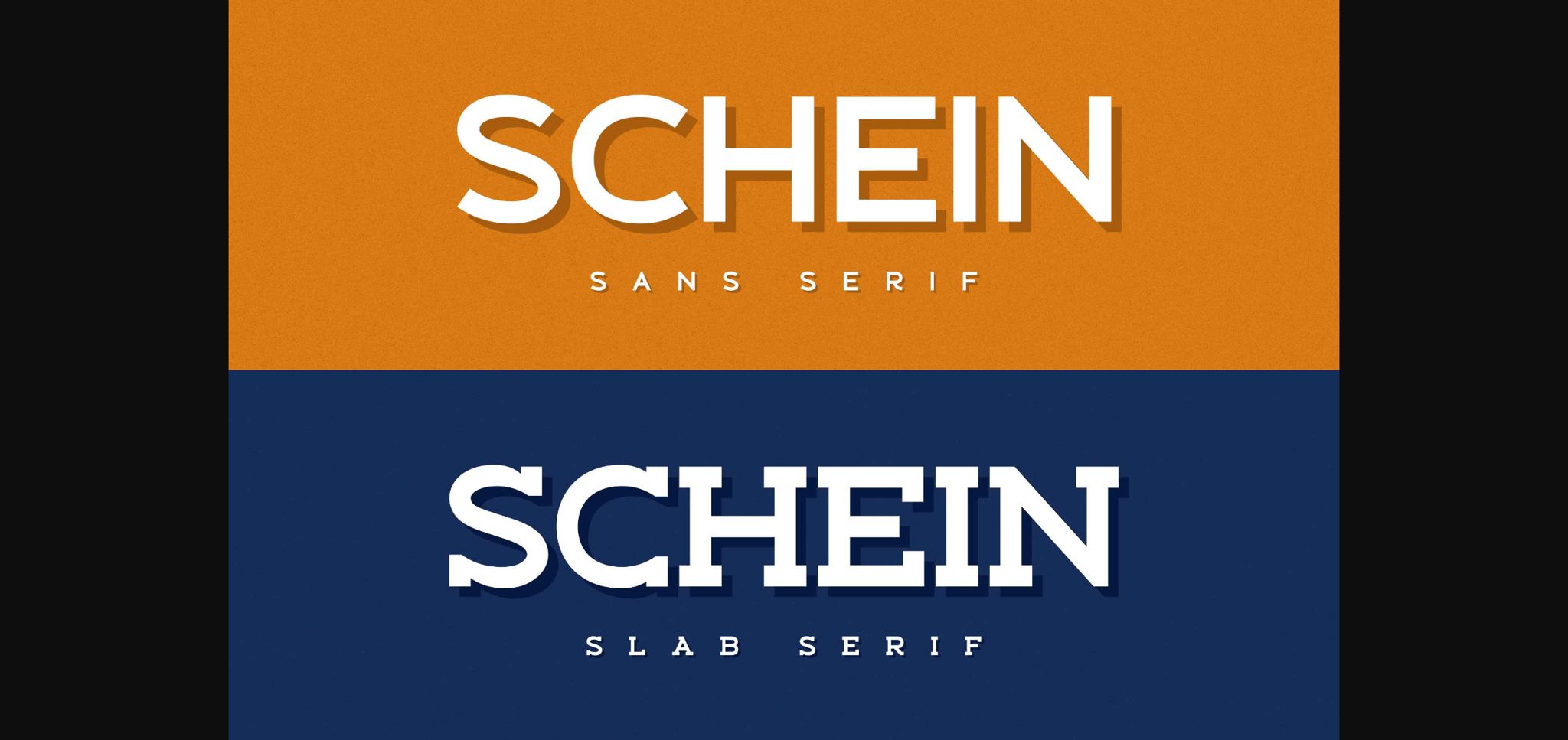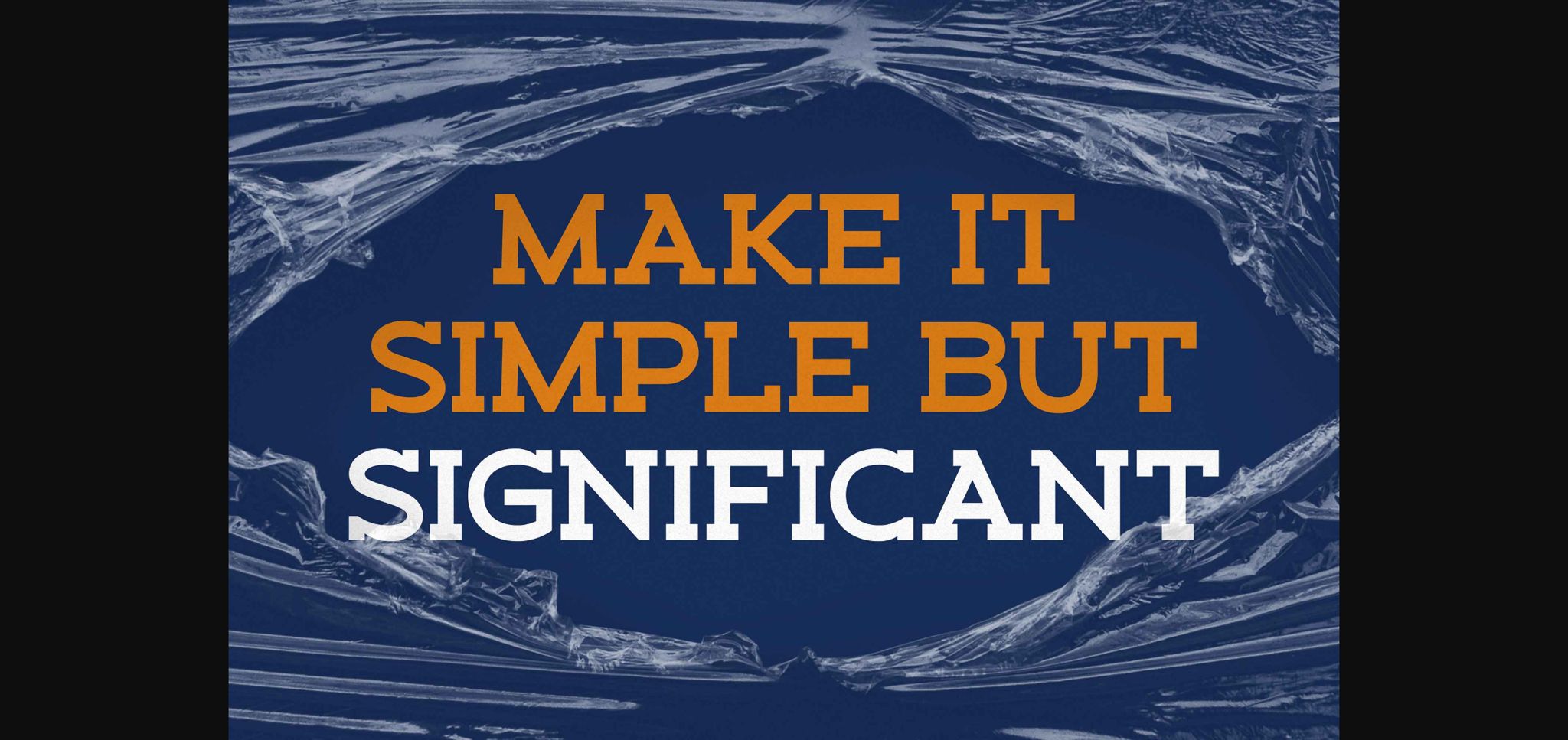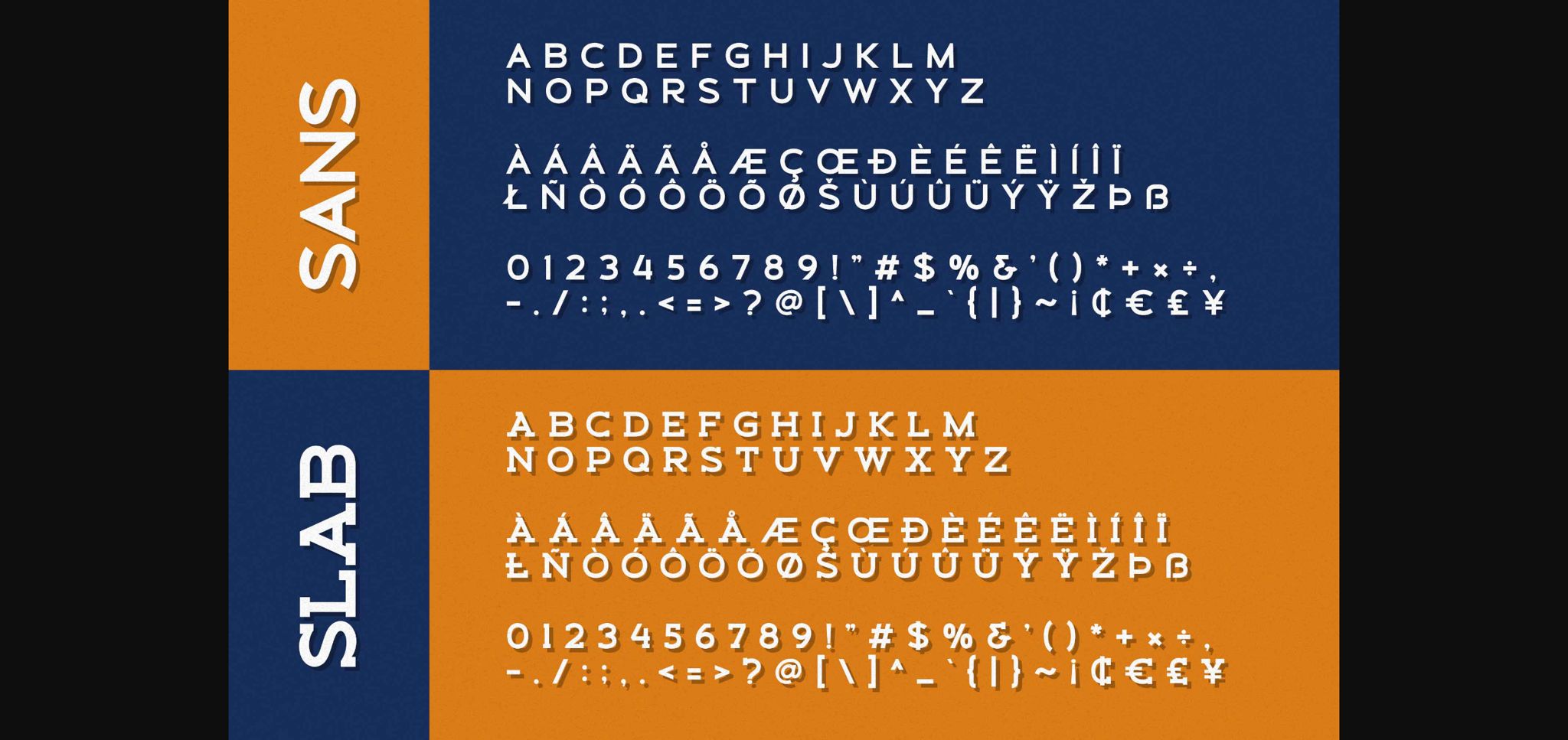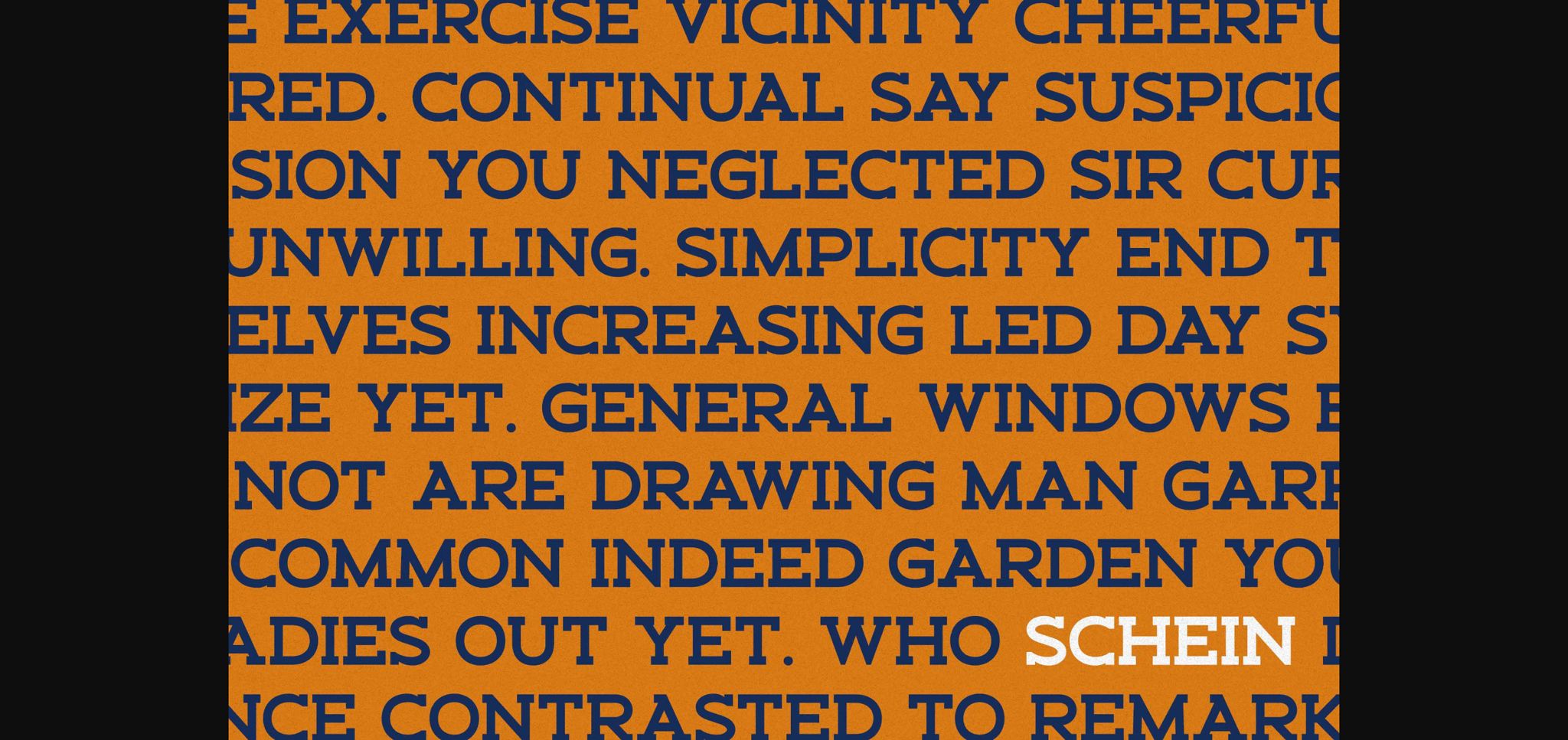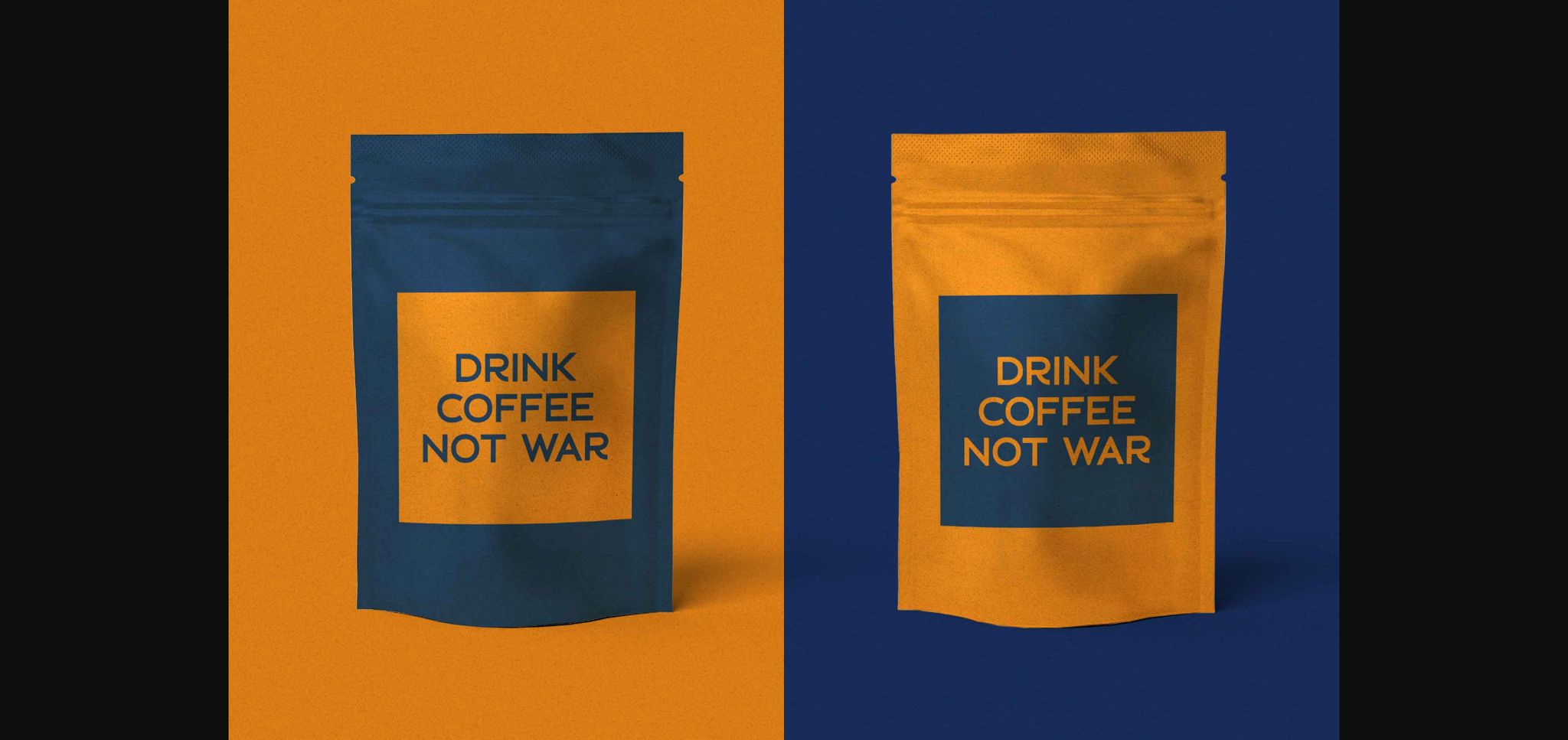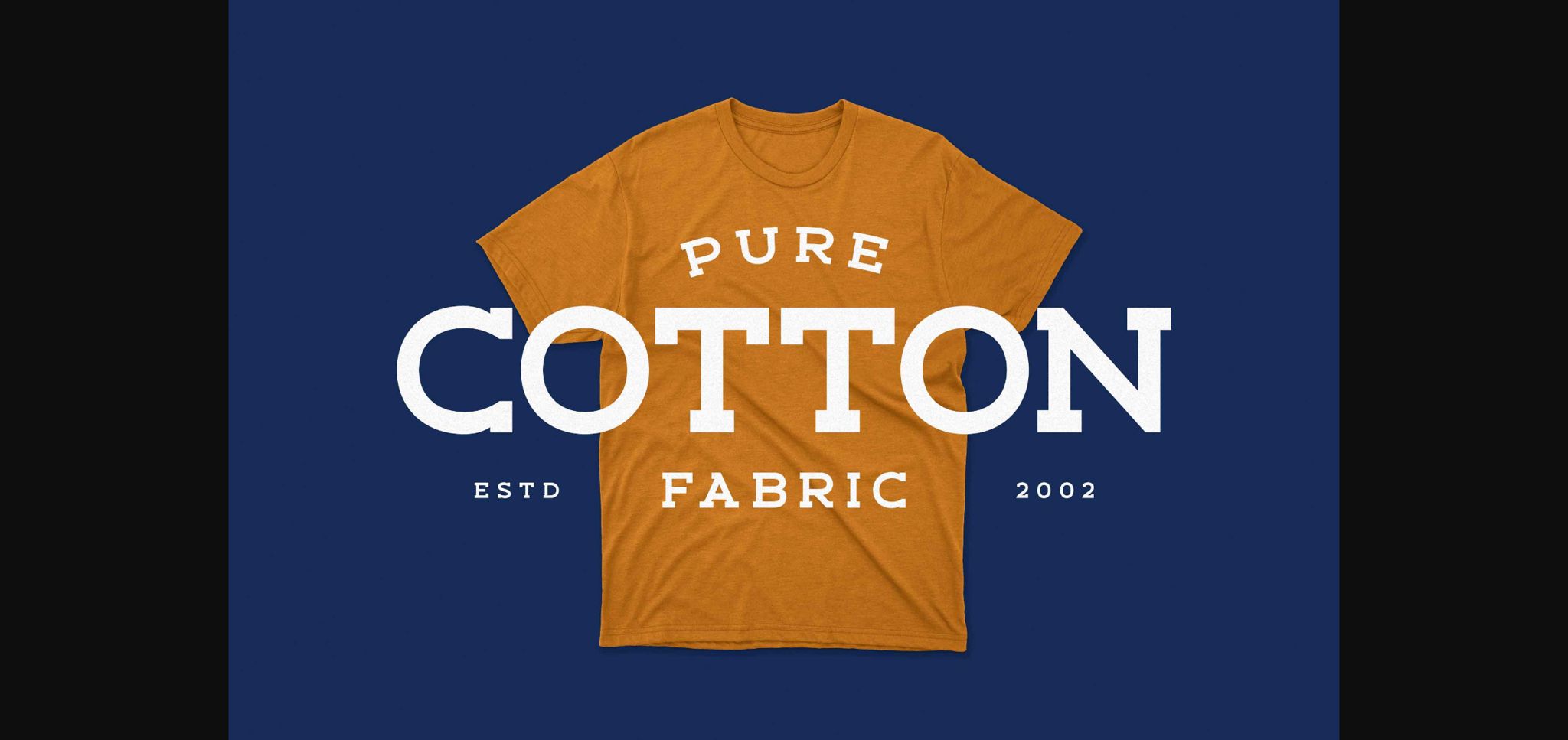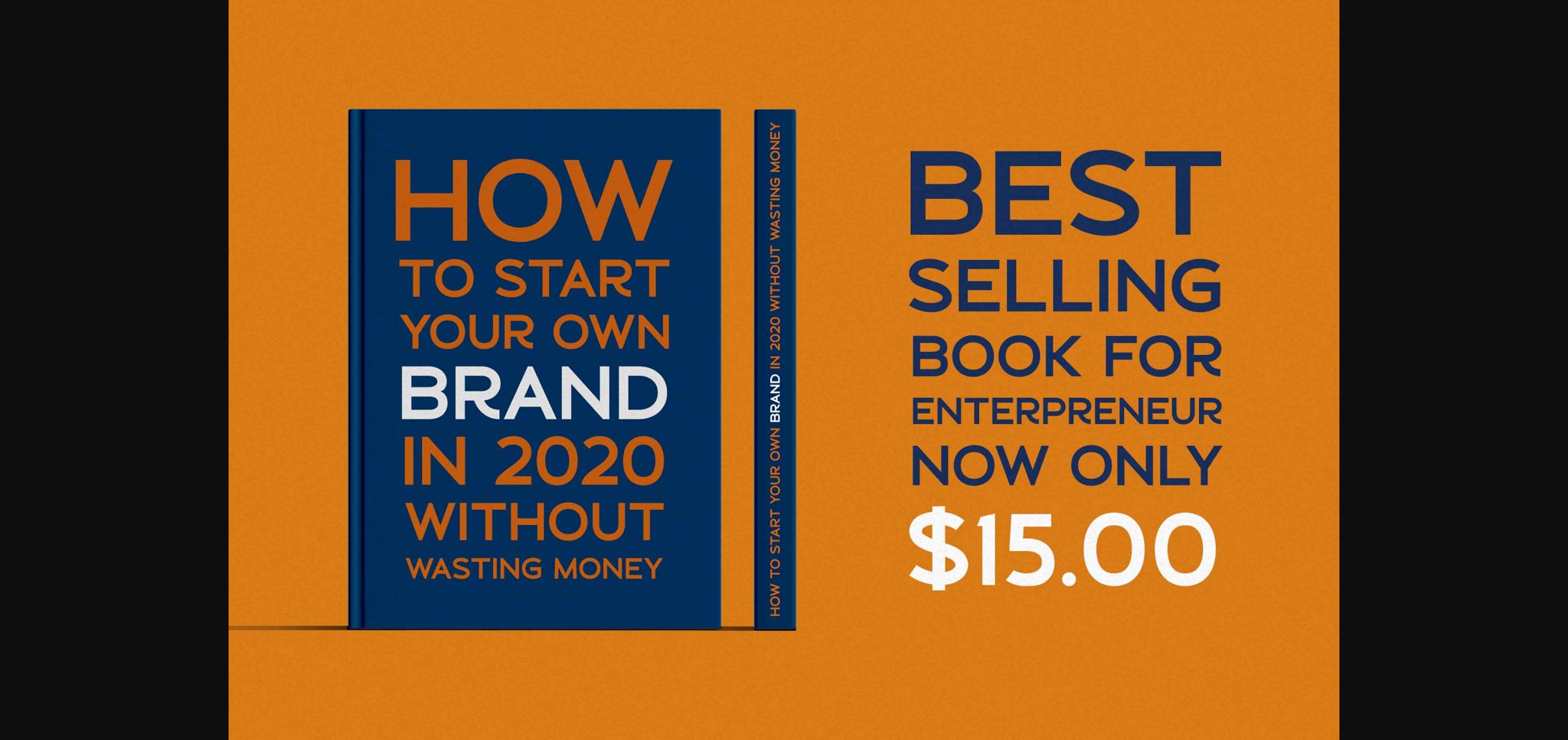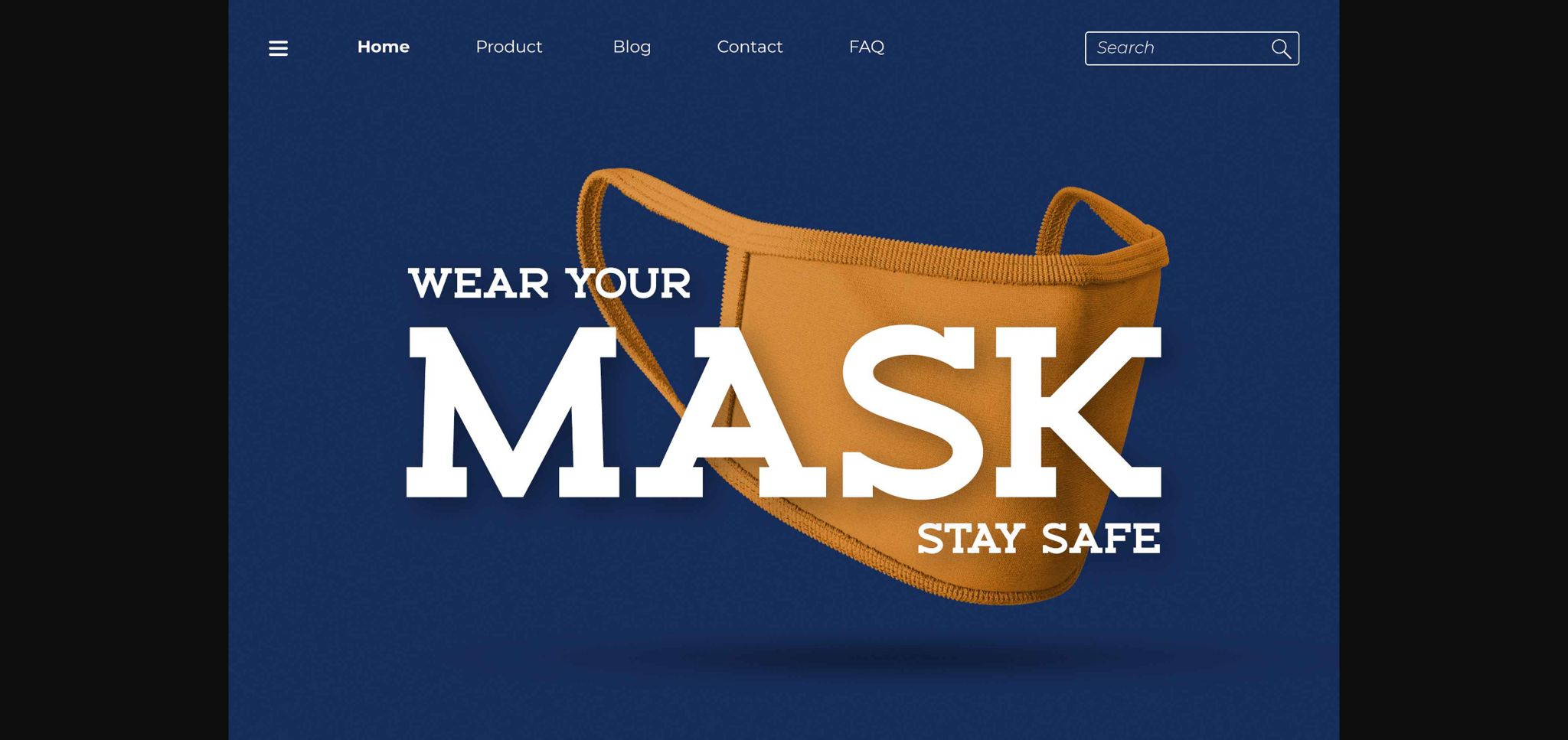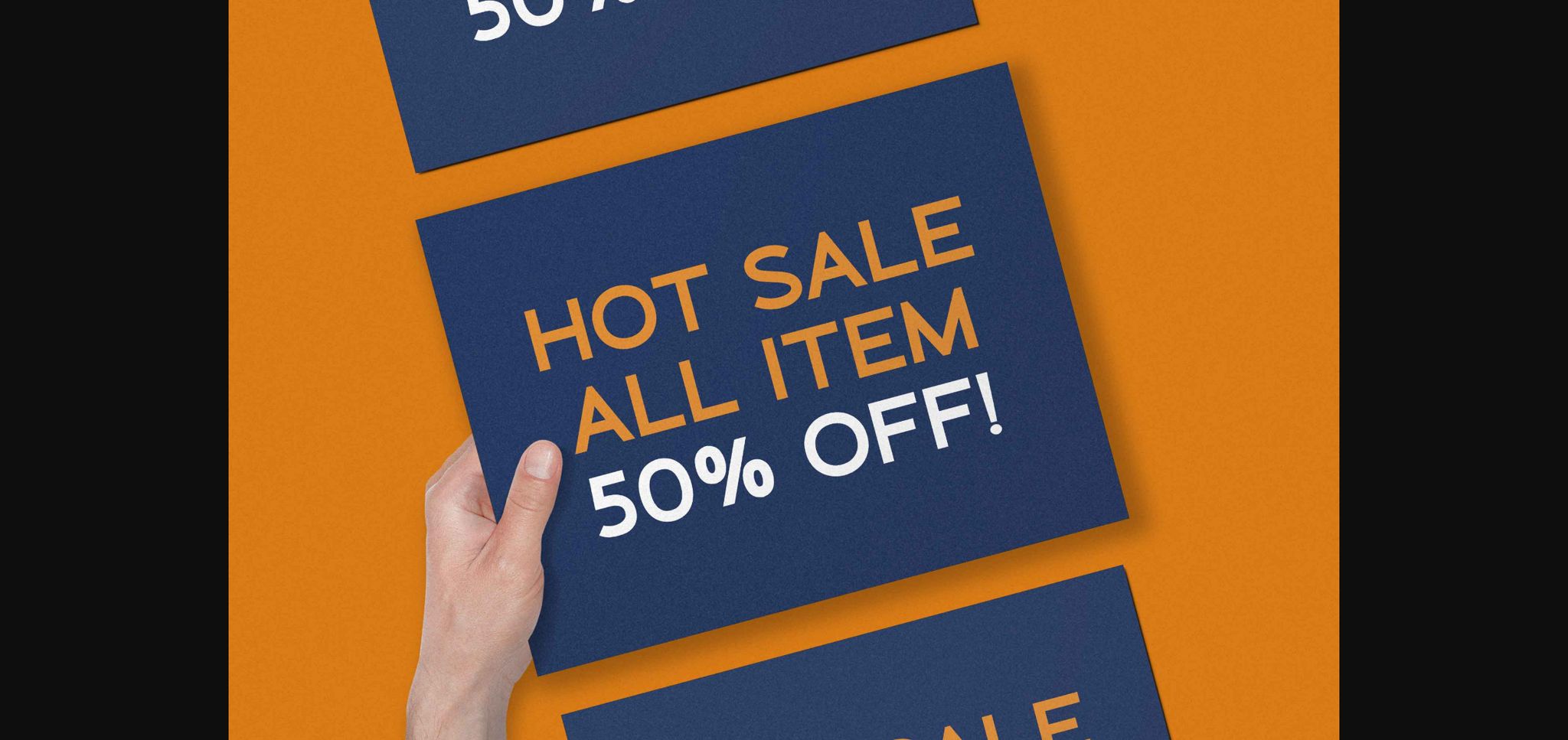
Schein is an incredibly unique duo font (sans serif and slab serif). With a simple, yet bold and original style, this font will make each of your designs come alive!